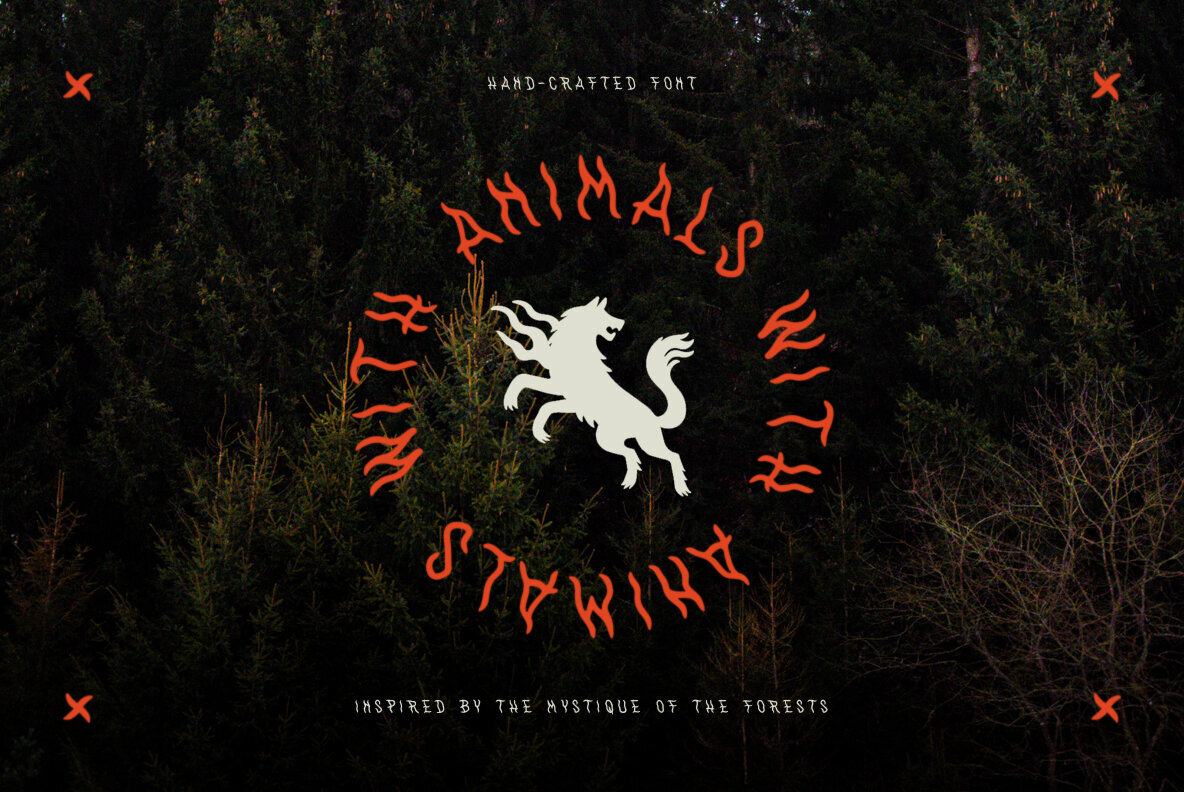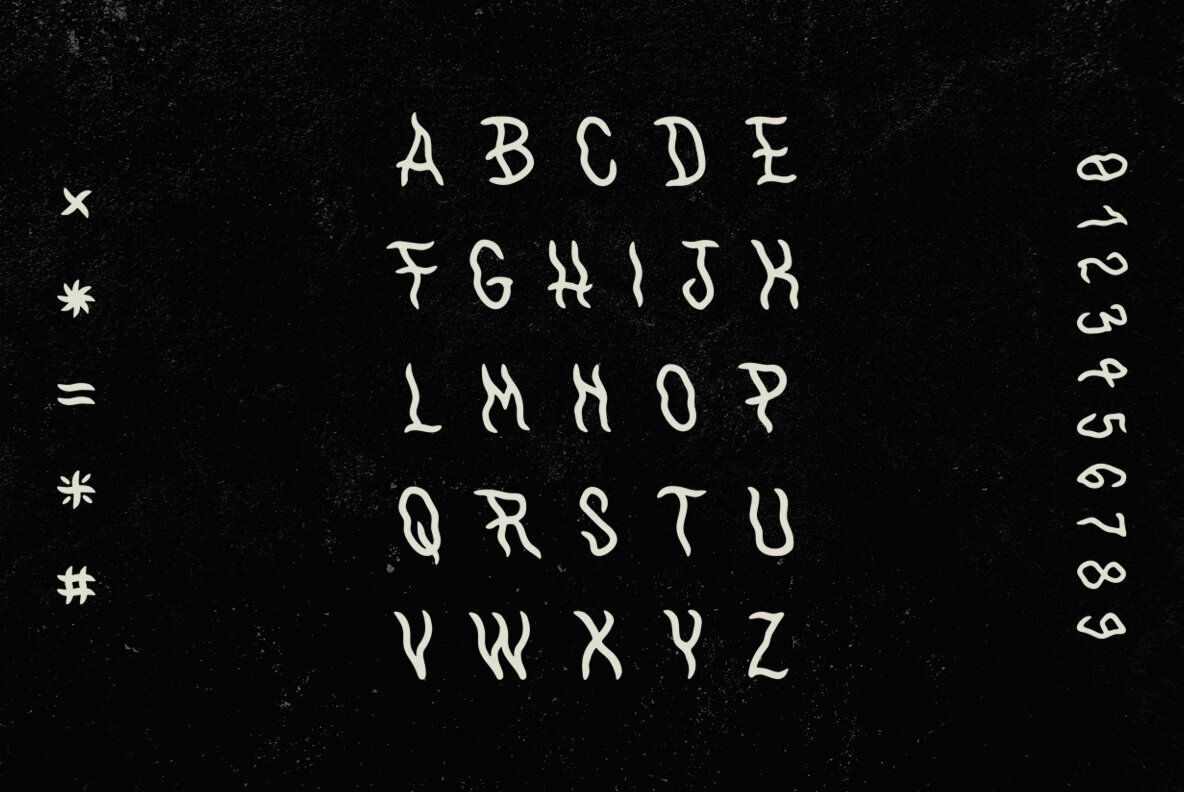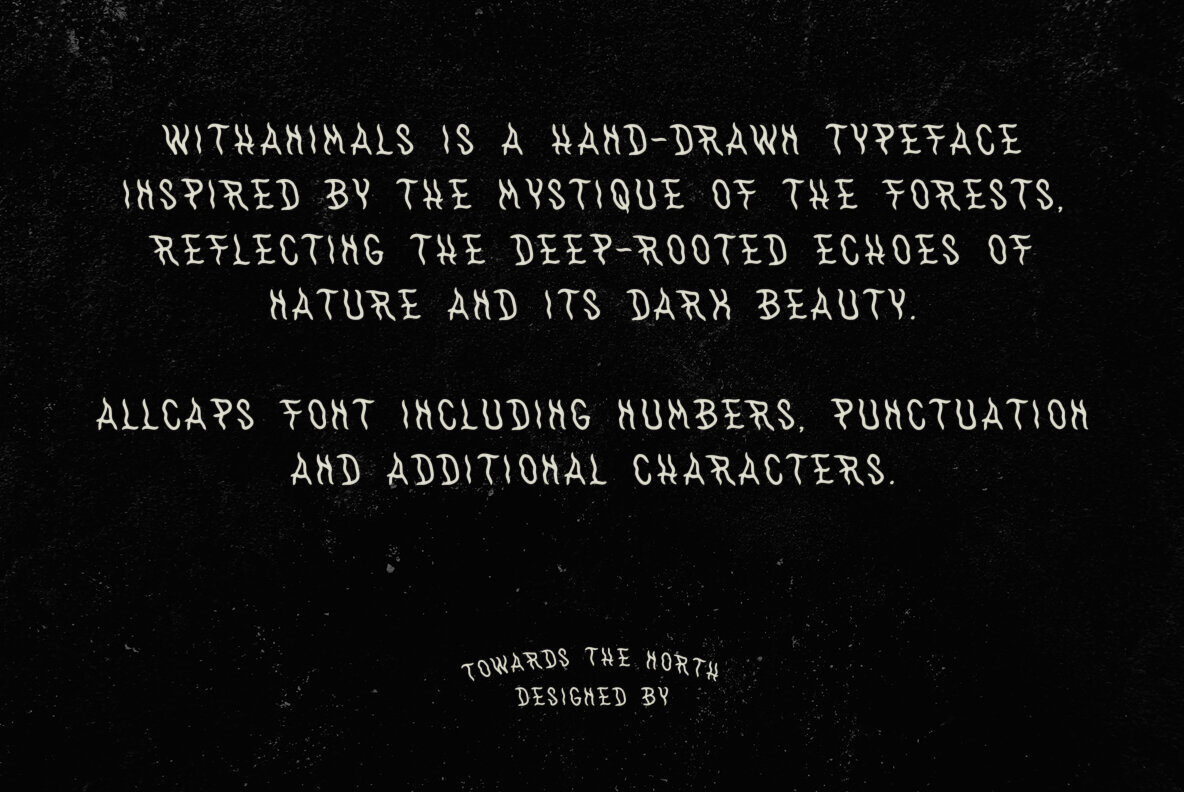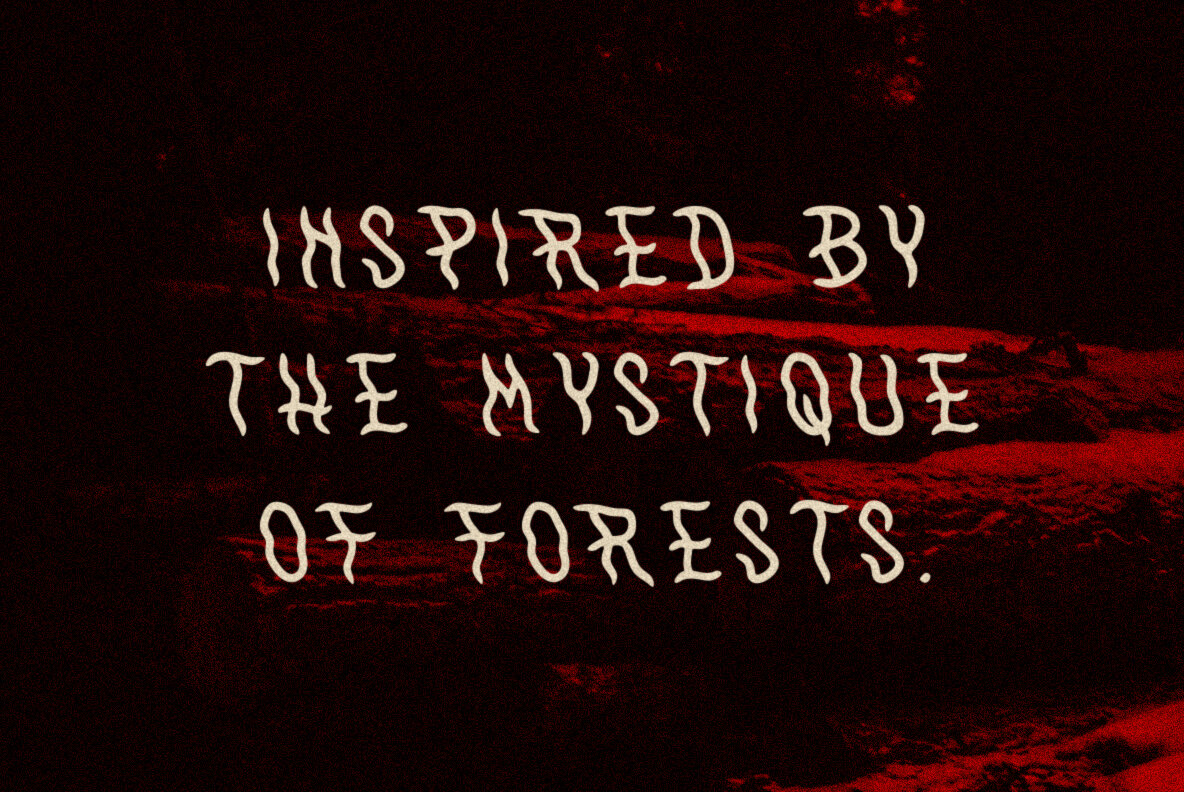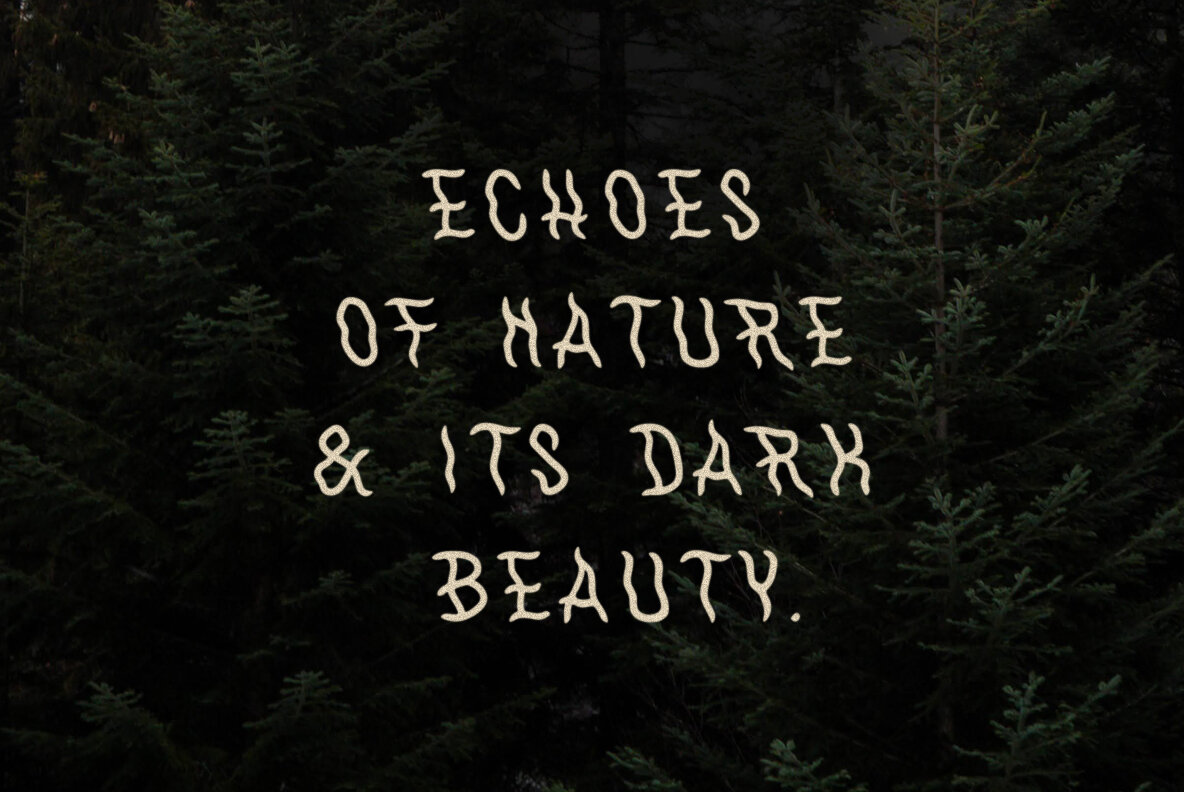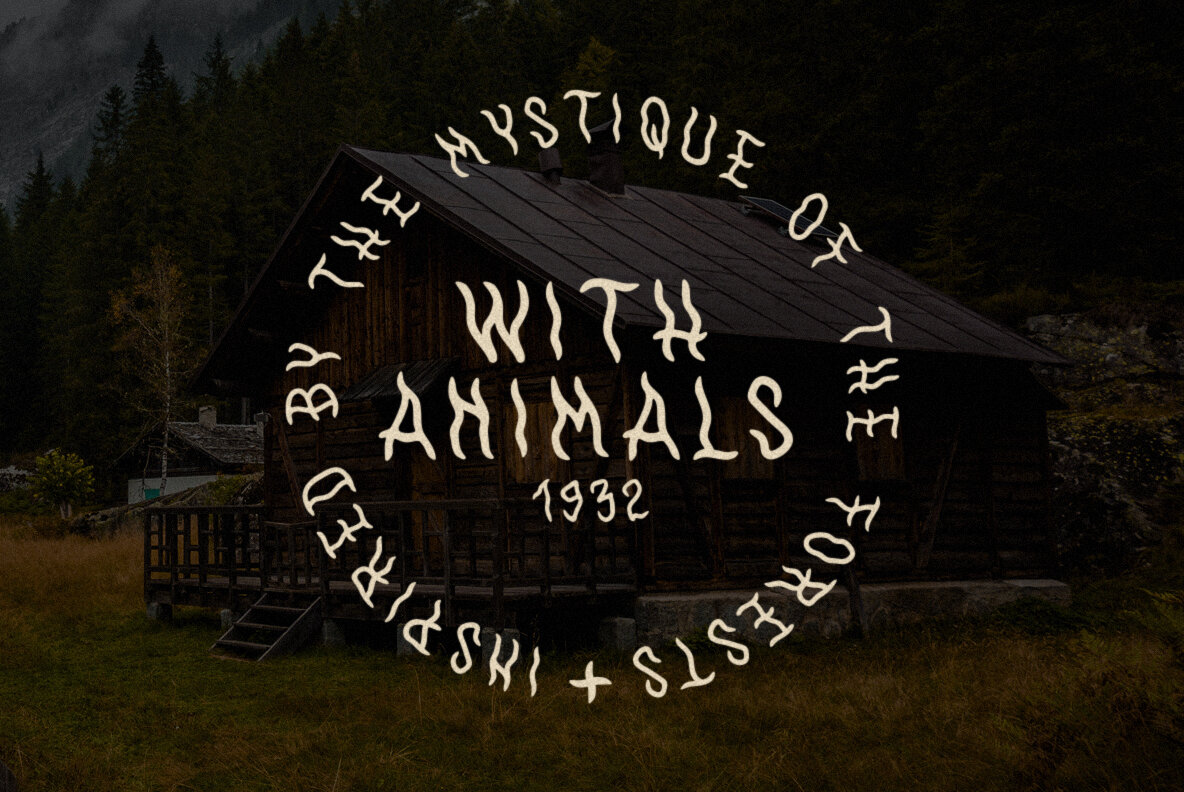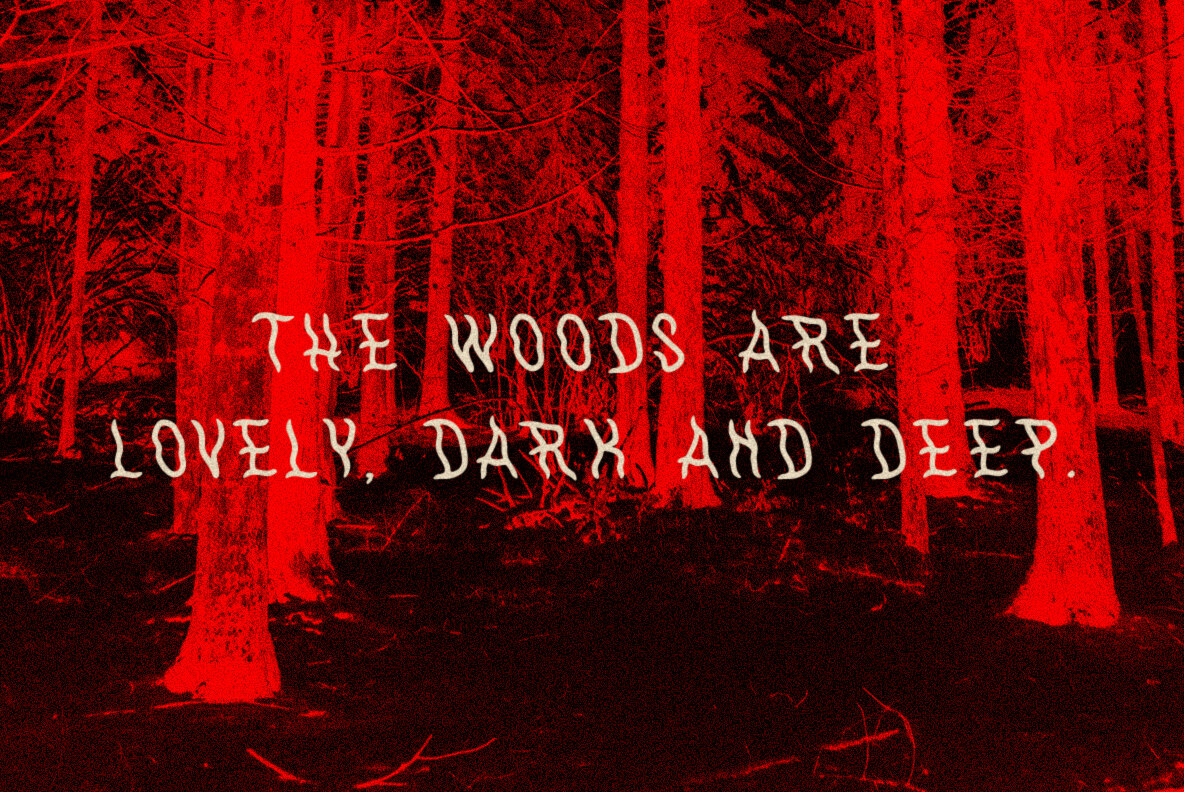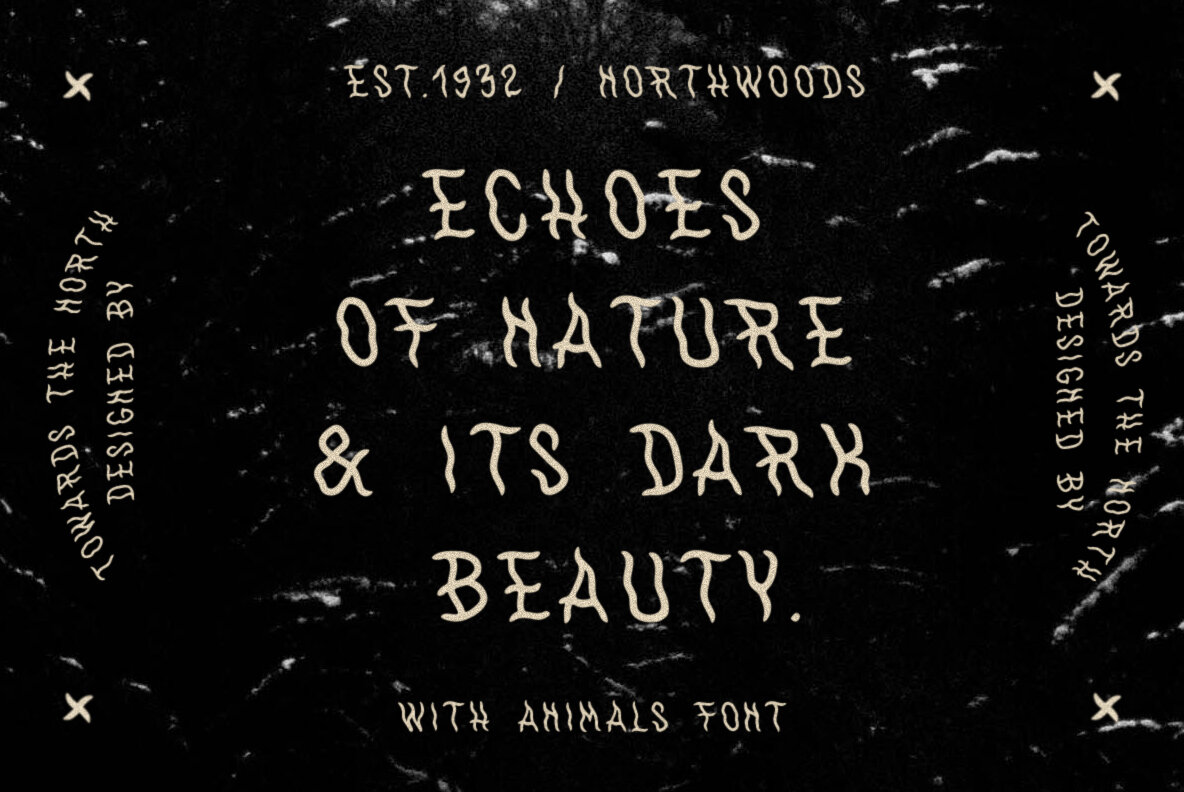
WithAnimals Font
WithAnimals
Step into the enigmatic allure of the forest with WithAnimals, a hand-drawn typeface that captures the mysterious charm and profound beauty of nature. This all-caps font brings the deep-rooted echoes of the wilderness to your creative projects, offering a unique blend of organic textures and compelling design appeal.WithAnimals: The Hand-Drawn Typeface